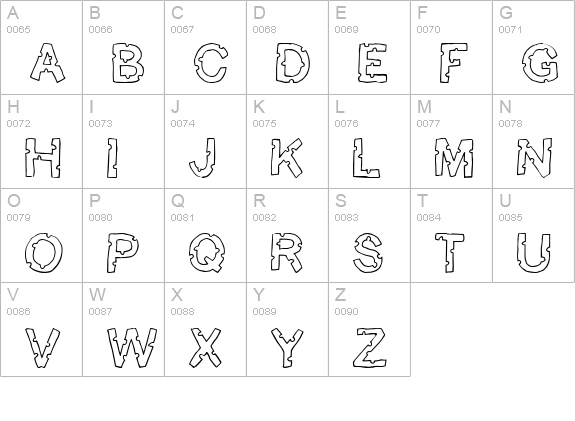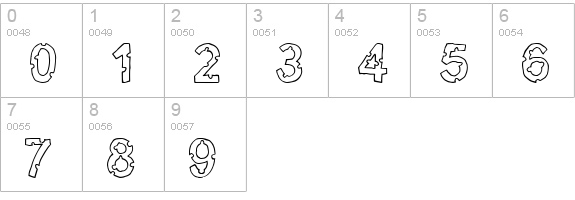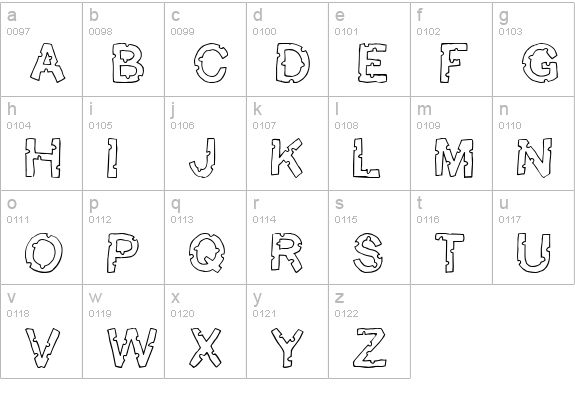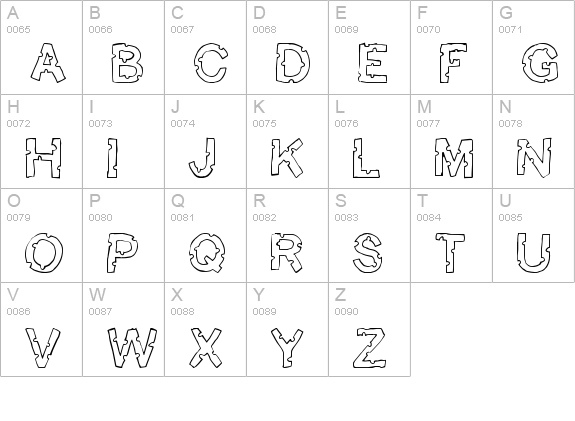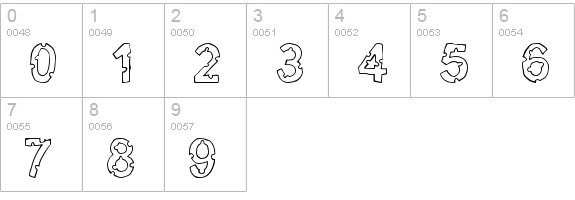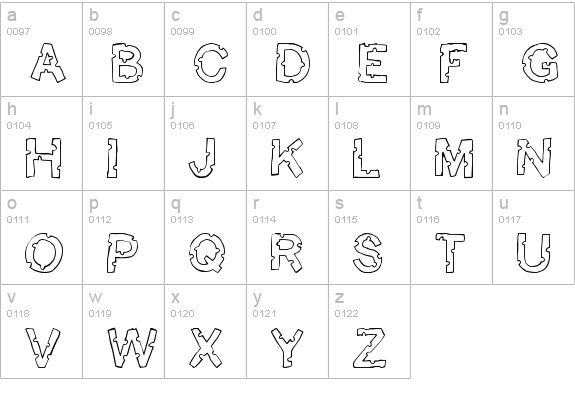
Introducing Bite me! font, a playful and energetic typeface that is sure to add a touch of fun to your creative projects. With its quirky and bold letterforms, Bite me! font is perfect for eye-catching headlines, branding materials, posters, and more. This font is freely available to download at FontsMarket.com, making it accessible to designers and creatives looking to add a unique and dynamic element to their work. Whether you're designing a party invitation, a social media post, or a logo, Bite me! font is a versatile choice that will make your text stand out. With its edgy style and modern appeal, Bite me! font is a must-have addition to any designer's font collection. Embrace the bold and playful vibe of Bite me! font and make your designs pop with personality and charm.